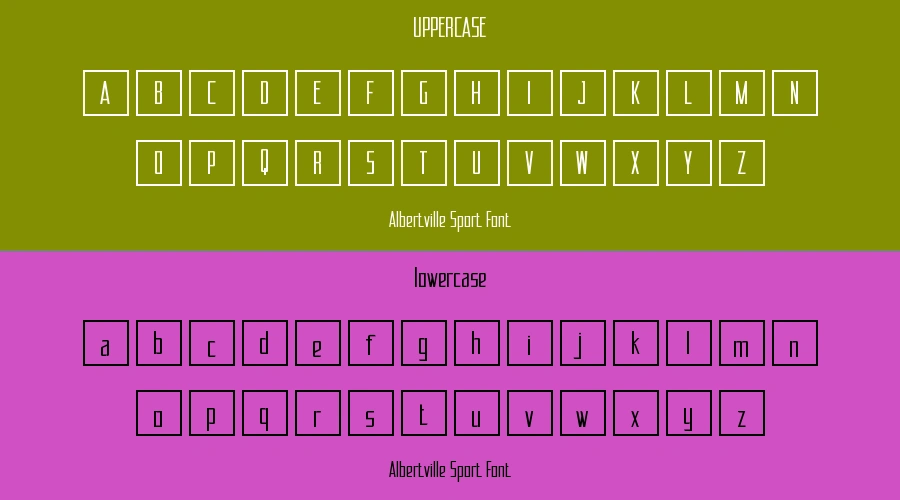
About Albertville Sport Font
Albertville Sport Font represents a sophisticated approach to type design, balancing architectural precision with longevity. Perfect for architectural plans, this font family showcases impressive impact and brand alignment throughout its character set. Designers appreciate its versatility and reliability.
Designers will appreciate nuanced touches including assertive angles and small caps, adding sophistication to any project. These features become apparent in marketing collateral, where performance matters most. The careful treatment of tail length and generational relevance ensures optimal performance.